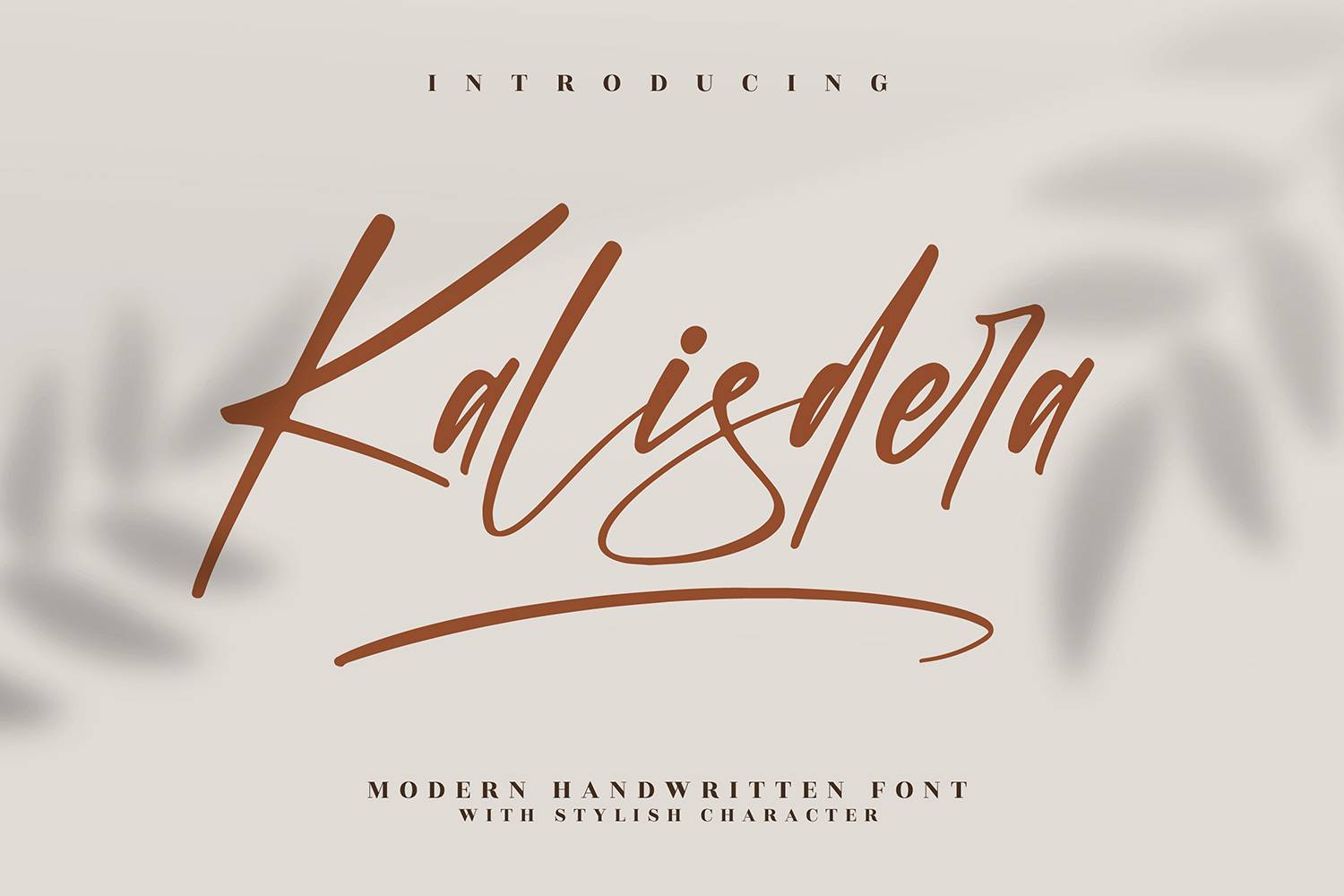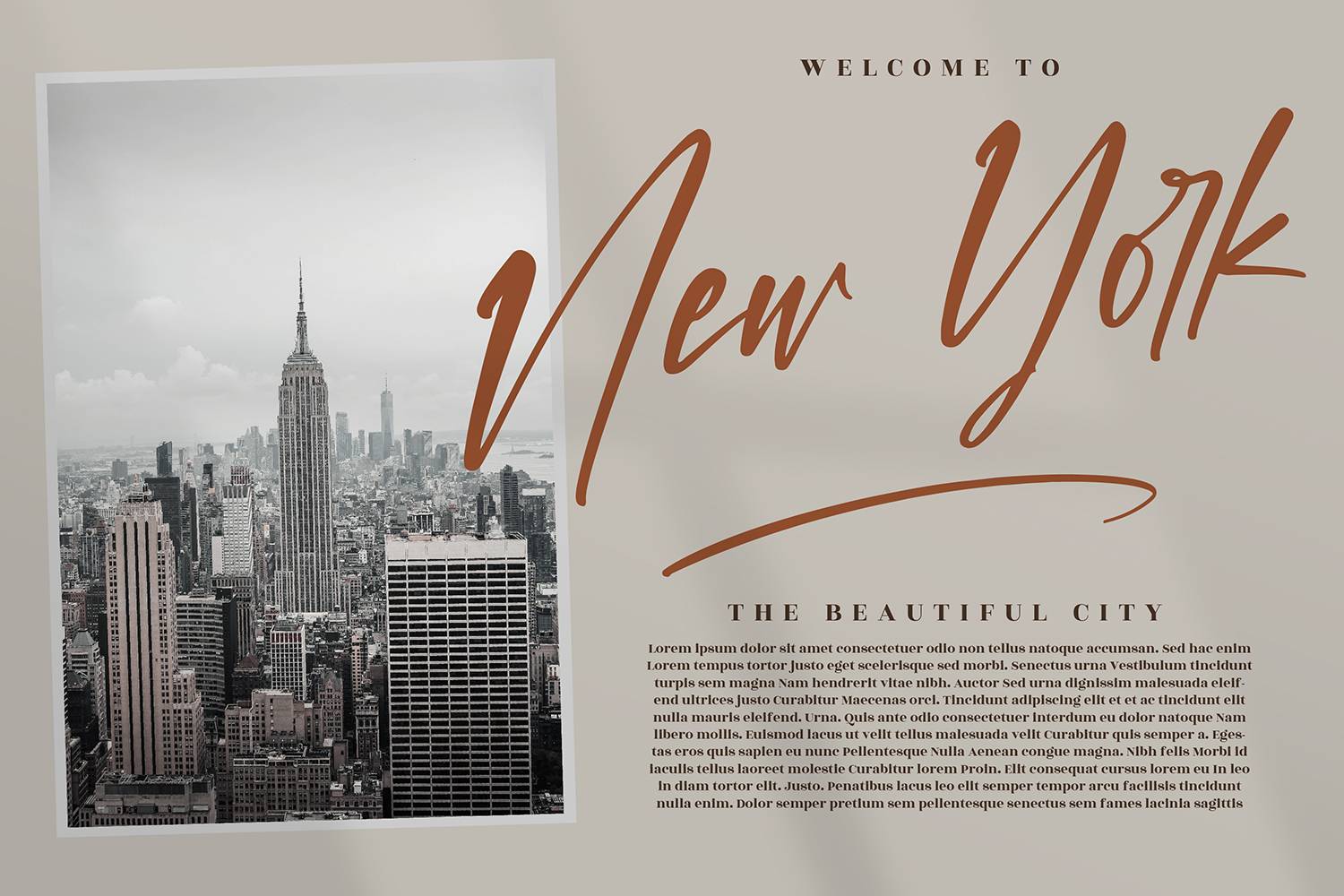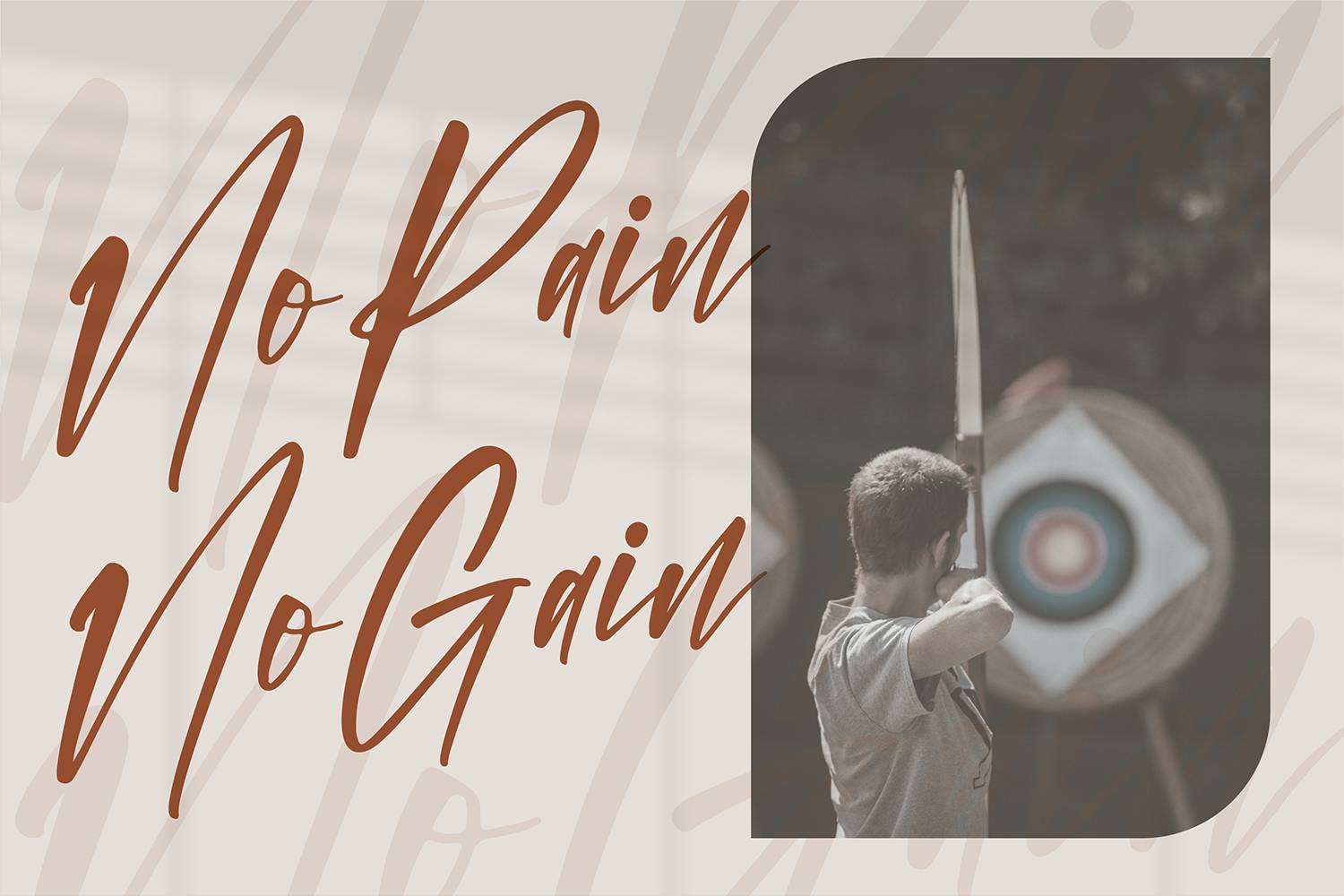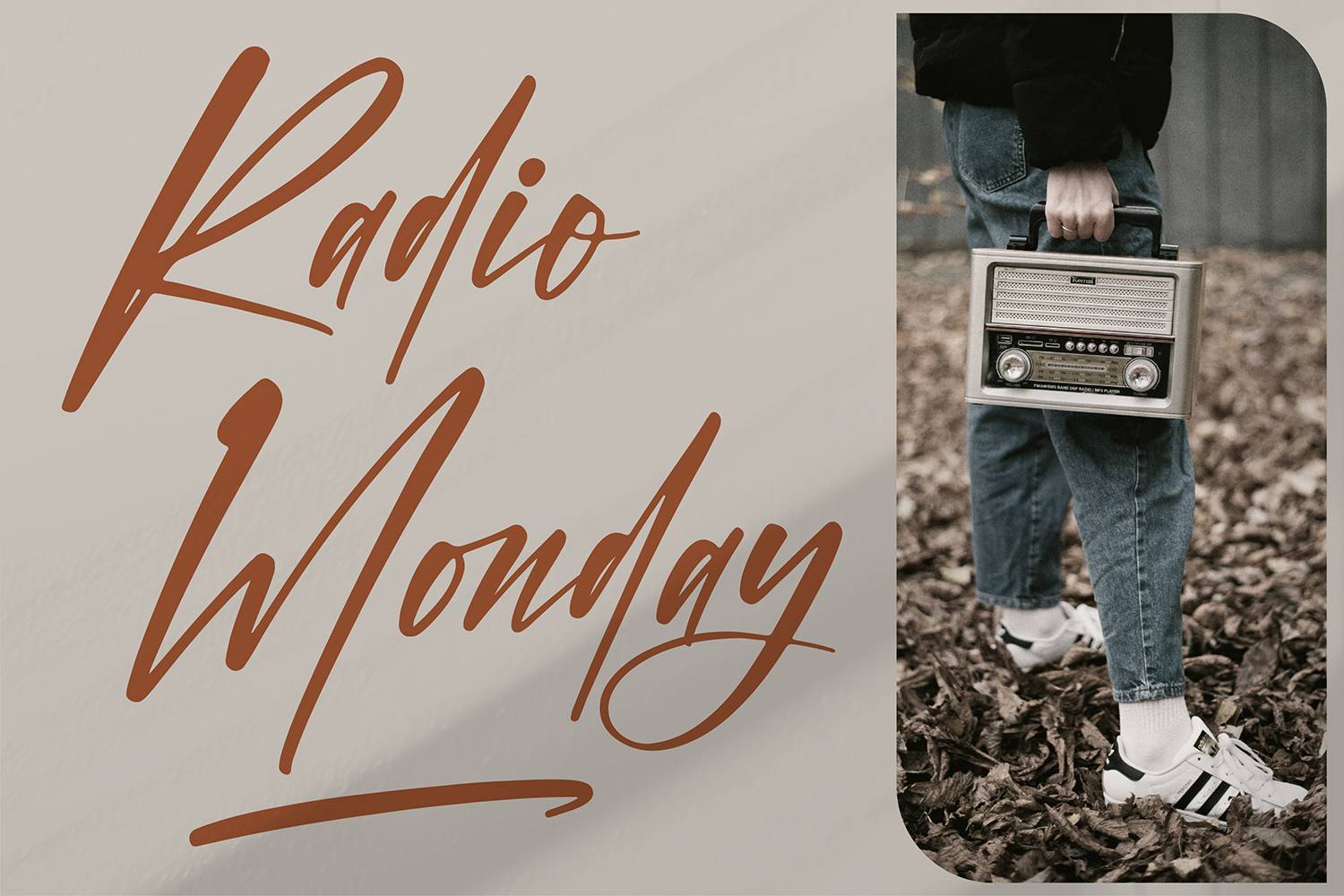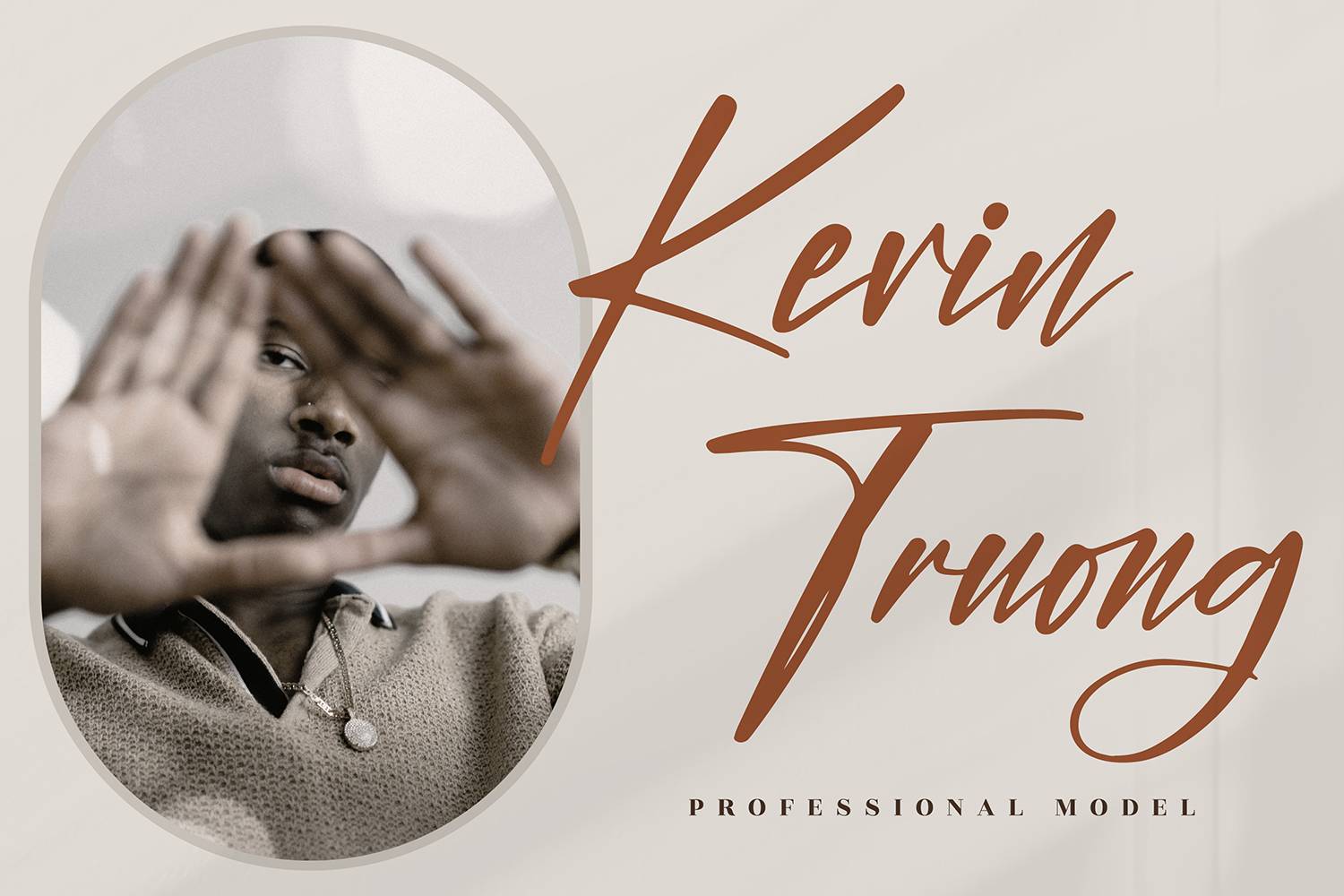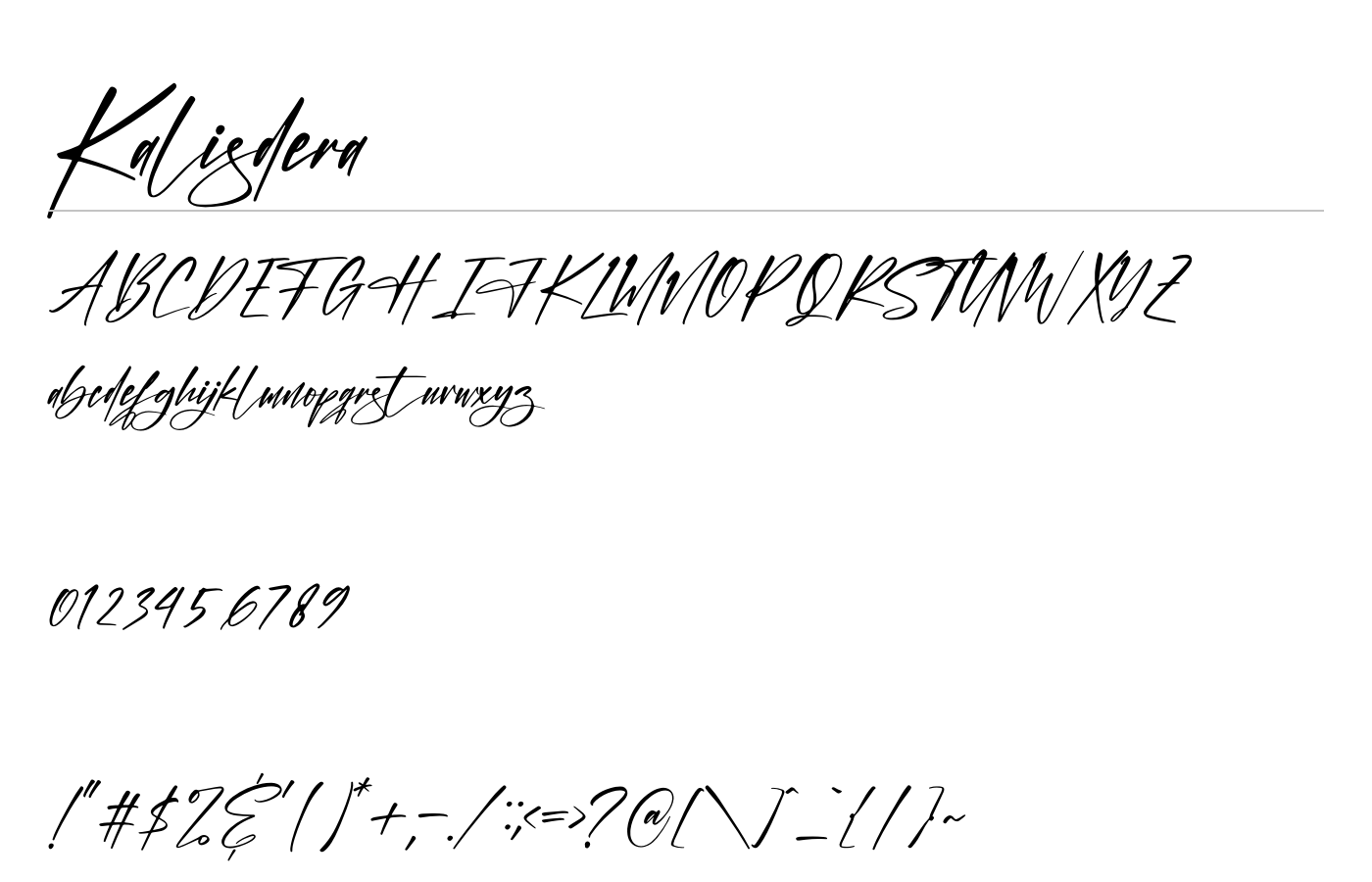
Kalisdera is a stylish, handwritten script font characterized by its fluid, elegant strokes and slightly condensed letterforms that give it a dynamic and personal touch. With its lively, brush-like texture and tall, narrow letters, it conveys a modern yet sophisticated feel, ideal for creative branding, invitations, and fashion-focused designs where a graceful, artistic expression is desired. This font works beautifully in logos and headlines, adding a chic, handmade vibe that stands out without sacrificing readability.
Kalisdera Font
About Kalisdera Font